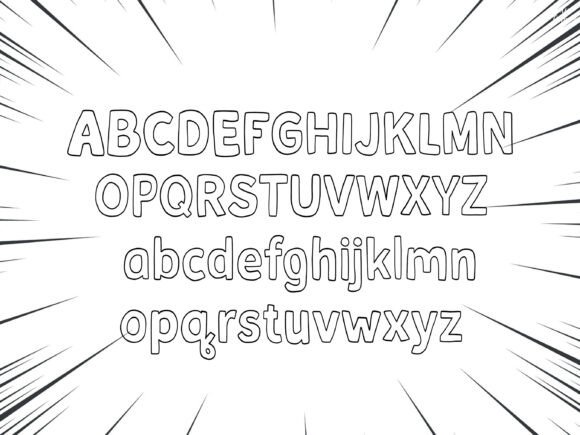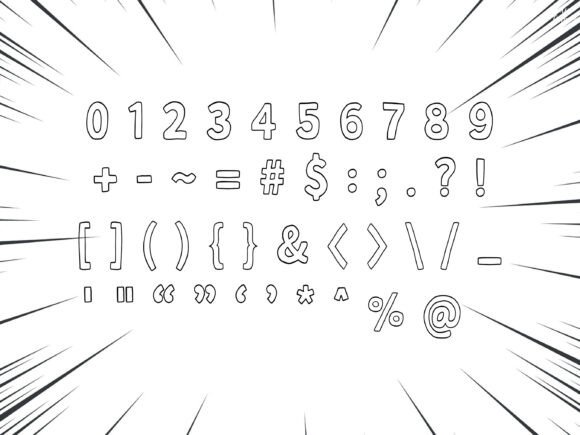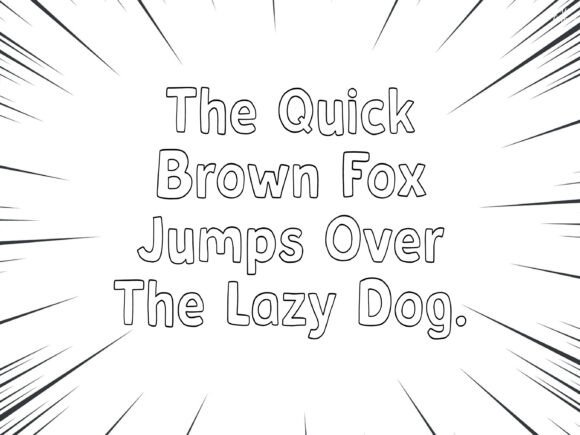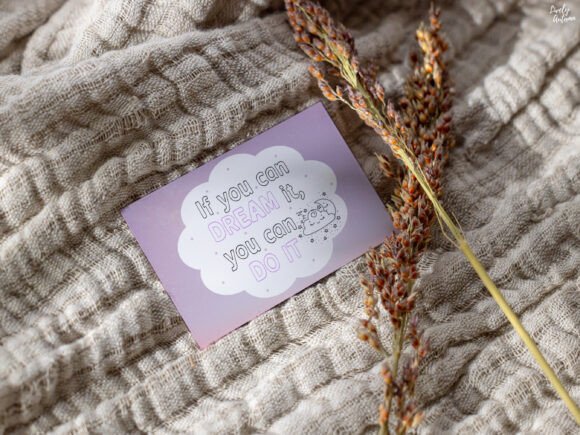
The Joy of Creating with Cartoony Font
Have you ever been working on a project, and suddenly, the perfect font pops into your head? For me, it was a sunny afternoon, surrounded by colorful markers and scraps of paper. I was brainstorming ideas for a friend’s birthday card, and the thought of a playful, handwritten font came to mind. Little did I know, that font would become the starting point for a world of creative possibilities.
Meet the Cartoony Font, an outline handwriting font that’s perfect for personal projects and a variety of designs. From invitations and posters to social media graphics and journals, this versatile font is sure to bring a touch of whimsy to any project. As a designer, you know how valuable a great font can be – it’s the perfect tool to elevate your work and make it stand out. The Cartoony Font is no exception, offering a unique and eye-catching style that’s sure to delight your clients and audience.
Key Features of Cartoony Font
- Unique Characteristics: The font features a playful, hand-drawn style with exaggerated lines, rounded edges, and subtle imperfections, giving it a whimsical and approachable feel.
- Character Set: Cartoony Font includes a comprehensive character set, including uppercase and lowercase letters, numerals, punctuation marks, and special characters, making it suitable for a wide range of applications.
- Language Support: The font supports multiple languages, including English, Spanish, French, German, Italian, and many others, making it a versatile choice for global design projects.
Cartoony Font Review
Overall, I think Cartoony Font is a fun and playful typeface that’s perfect for adding a lighthearted touch to designs.
- Expressive and whimsical characters that bring a sense of personality to text
- Versatile and adaptable, making it suitable for various design applications
- Easy to read, despite its unconventional style
- May not be suitable for formal or professional designs, as it can come across as immature
- Lack of consistency in letterform design, which may be distracting in certain contexts
- Not ideal for large blocks of text, as it can become overwhelming
While Cartoony Font has its limitations, I think it’s a great addition to any designer’s toolkit for adding a touch of whimsy and fun to their designs. Just be sure to use it in moderation and with a clear understanding of its strengths and weaknesses.
Getting the Most Out of Cartoony Font
To get the most out of the Cartoony Font, try the following tips:
- Combine the Cartoony Font with bold or italic styles for added emphasis.
- Use the font in conjunction with colorful graphics and backgrounds for a playful look.
- Experiment with different font sizes and arrangements to create visual interest.
The Cartoony Font is perfect for:
- Children’s book illustrations and designs.
- Playful logos and branding materials.
- Fun and creative social
Alternatives to Cartoony Font for Designers
When looking for alternatives to Cartoony Font, designers often seek fonts that evoke a similar playful and whimsical feel while offering unique characteristics. Here are a few options to consider.
Great Vibes is a modern script font designed to convey a sense of friendliness and approachability. It’s ideal for use in headings and titles where a touch of elegance is desired. When compared to Cartoony Font, Great Vibes is more refined and sophisticated, making it a great choice for designers looking to add a bit of sophistication to their designs.
Pacifico is a beautiful, elegant script font that’s perfect for use in invitations, quotes, and other design elements where a touch of luxury is desired. Compared to Cartoony Font, Pacifico is more formal and sophisticated, making it a great choice for designers looking to add a bit of sophistication to their designs.